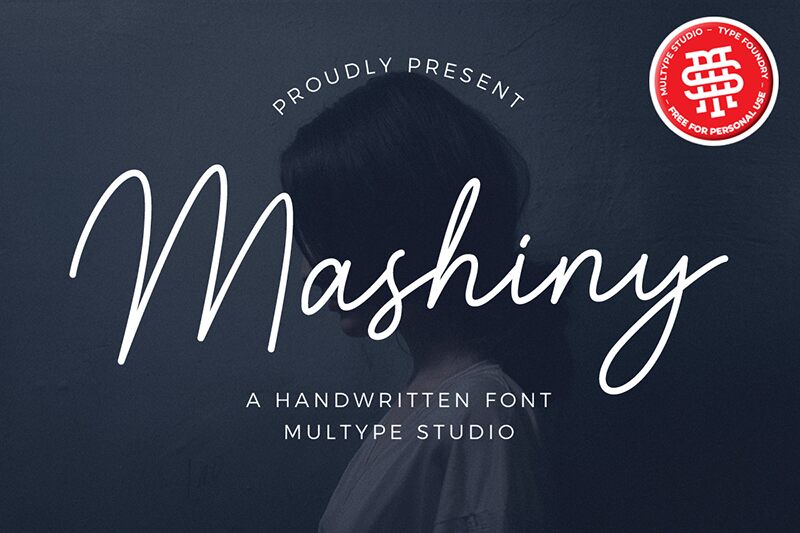
Mashiny, crafted by the innovative minds at Multype Studio, stands out as a handwritten font that exudes elegance with its unique curves and light weight that mimic the graceful flow of ink. This font's distinct charm is perfect for injecting personal touch and sophistication into a vast array of creative projects. Whether you’re enhancing the visual appeal of photography with stylish watermarks, crafting eye-catching social media posts, or designing logos that demand attention, Mashiny brings an authentic handwritten feel to your work.
For branding endeavors or invitations that require a delicate yet impactful typeface, this font delivers. It effortlessly adapts to product designs, labels, and stationery needs. Moreover, for those special moments like weddings or significant events where every detail matters, Mashiny's aesthetic aligns seamlessly with your vision for elegant communication. Its versatility in packaging design further confirms its potential to elevate any product’s presentation on the shelf. Embrace the handcrafted sophistication of Mashiny to make your next project stand out with a signature style.